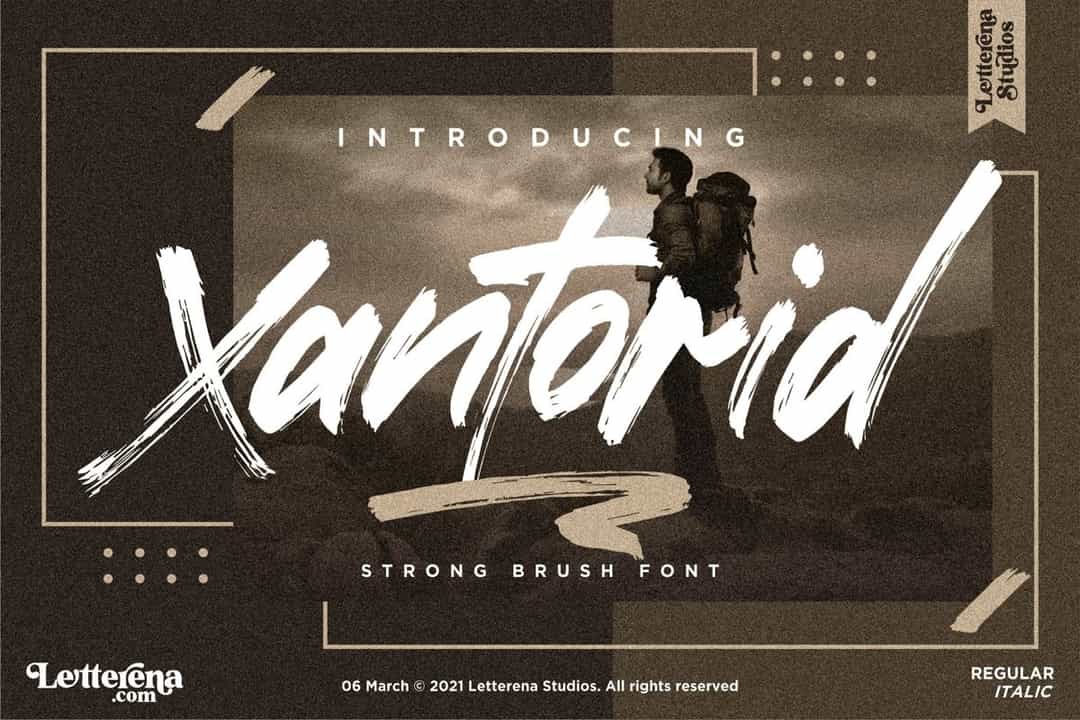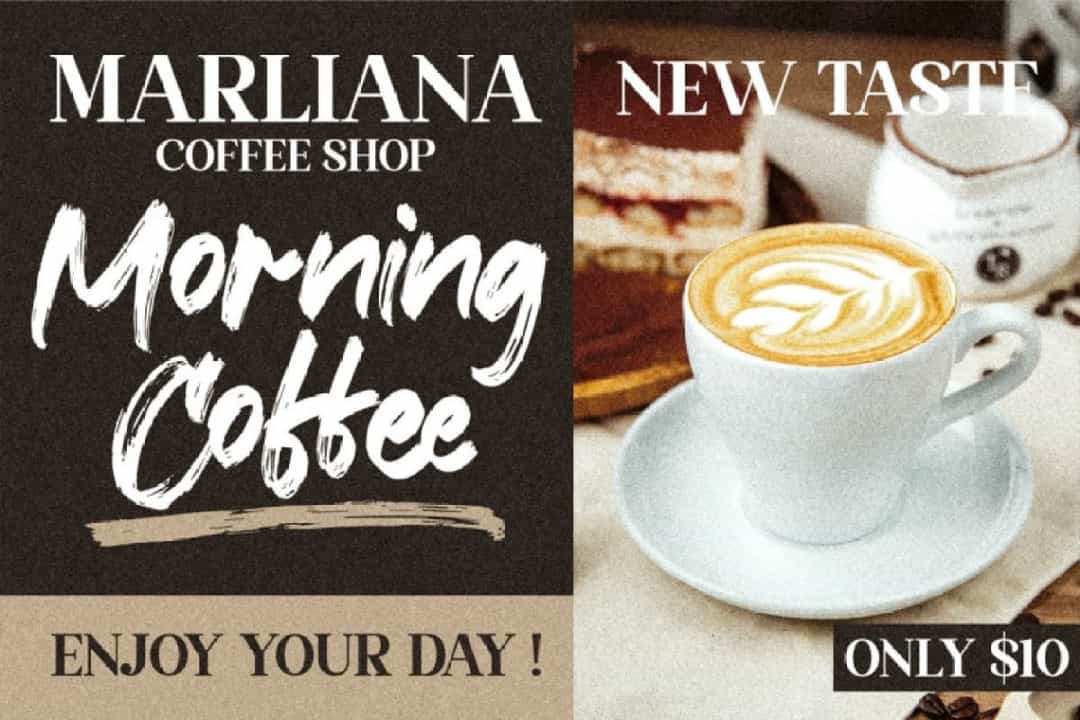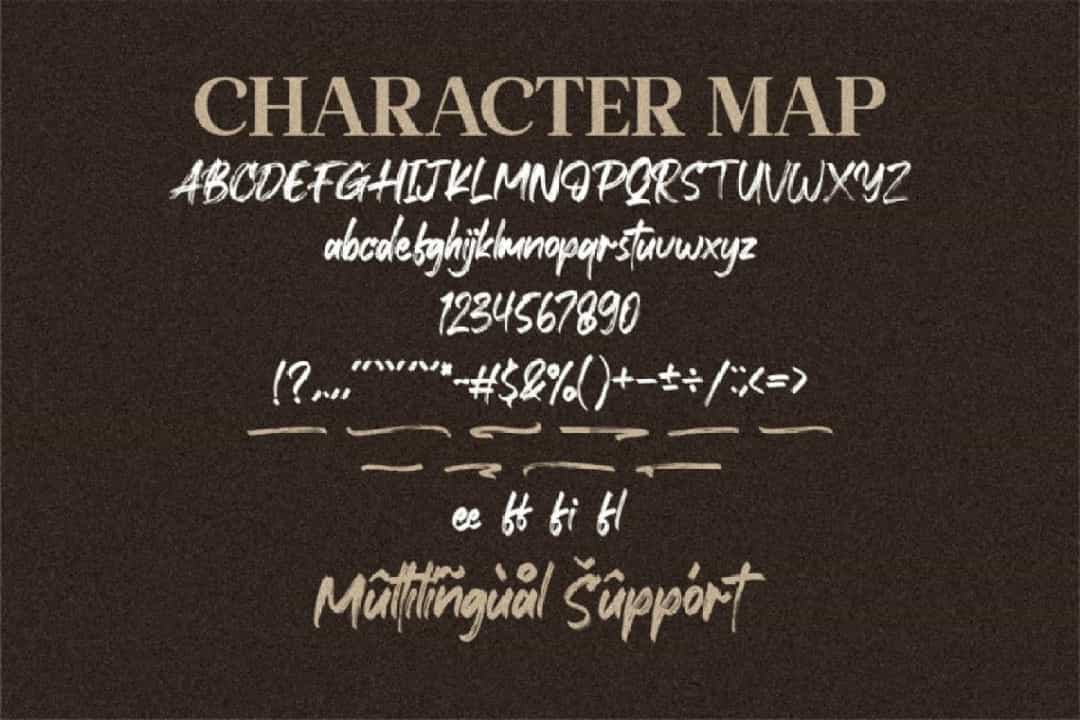
Discover Xantorid Font, part of the Brush collection—a versatile and unique font perfect for adding a personal touch to your projects. Download it for free and enjoy crafting designs with style, from invitations to social media posts. This font is available exclusively for personal use, giving you the freedom to create without limits. Unlock your creativity with Xantorid Font today!
Xantoridis is a beautiful brush script font ideal for logotype, logo branding, homewares packaging, t-shirts, book covers, greeting and invitation cards, labels, watermarks, photography events occasion and other projects with strong brush characteristics like photography events occasions and delta.